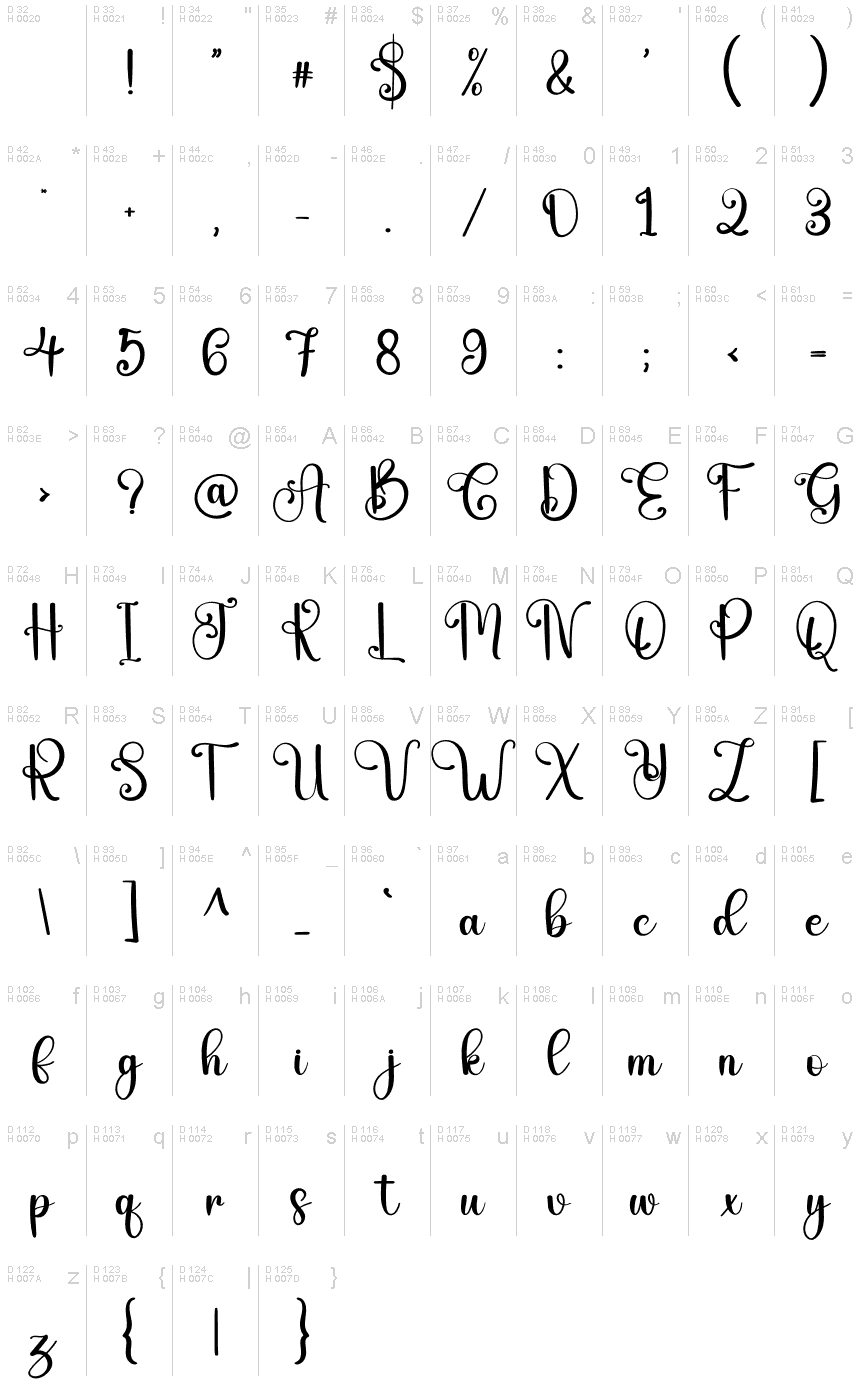
Outlying
Outlying, a captivating calligraphy font designed by Harlek Studio, effortlessly blends elegance with modernity.
Its semi-light weight adds a delicate touch to any project, making it ideal for wedding invitations and romantic correspondence. The graceful curves and intricate details of Outlying also make it suitable for high-end branding materials, such as luxury fashion labels or boutique hotel logos. Whether used in print or digital form, this enchanting calligraphy font will infuse your designs with sophistication and charm.